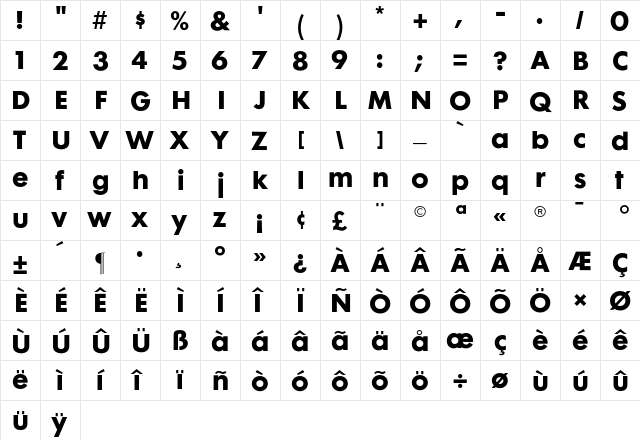
Futura Maxi CG Bold Regular
| Foundry | Agfa Corporation |
Design Context for Futura Maxi CG Bold Typeface
Futura Maxi CG Bold channels digital-age aesthetics through its sharp, structured letterforms — ideal for brands that want to signal innovation. The heavy weight commands attention and anchors typographic hierarchies.